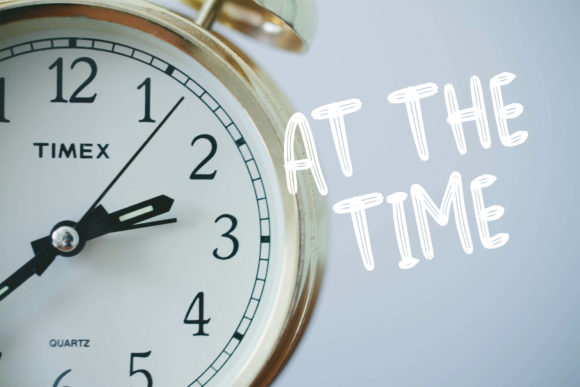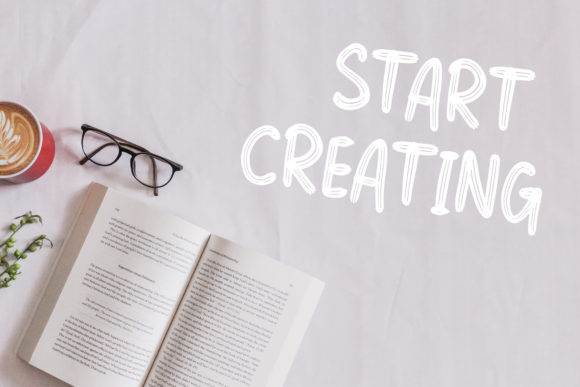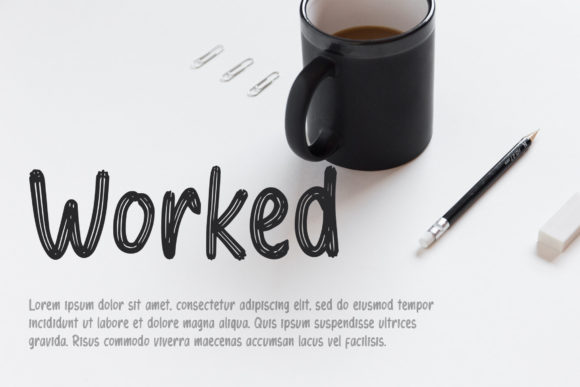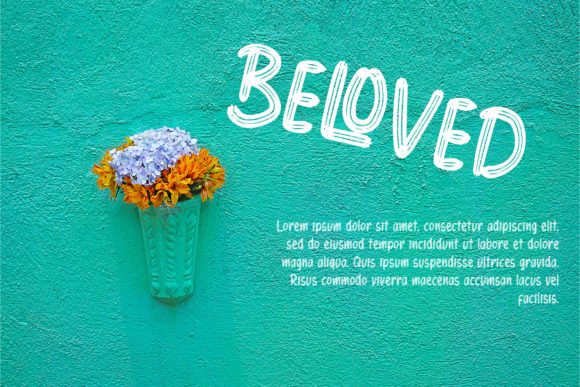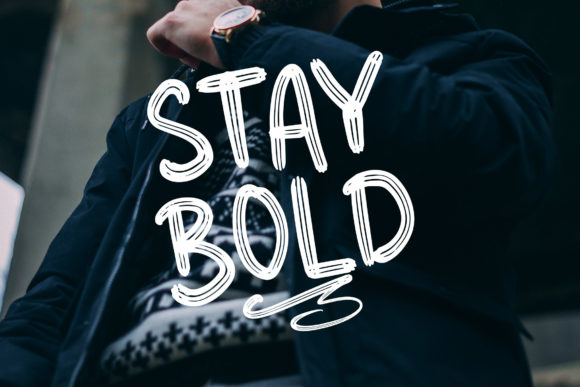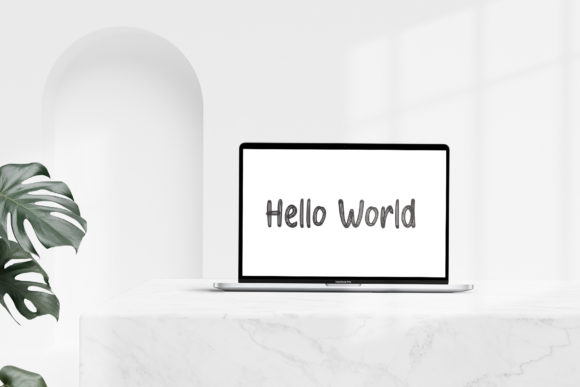
Introduction to Crack Line Font
Crack Line is a fun and friendly display font, that can easily stand out.
Simple but with a strong visual effect, this font will instantly make your creation more appealing than any others .